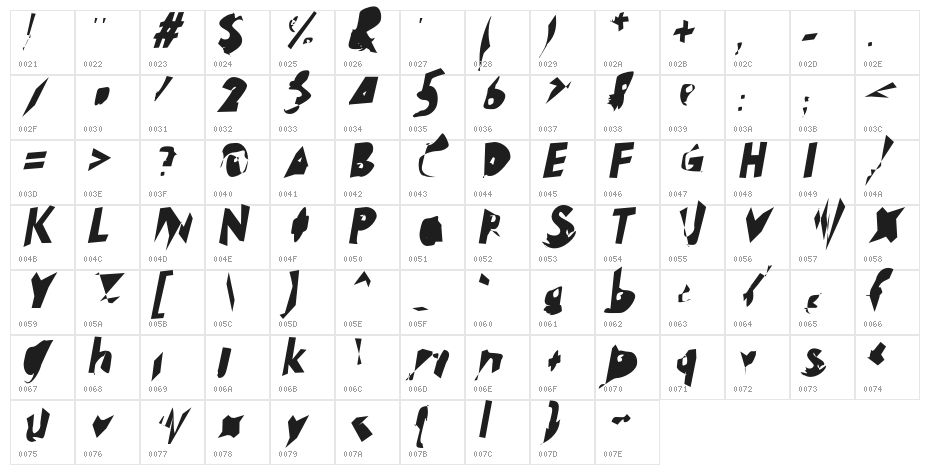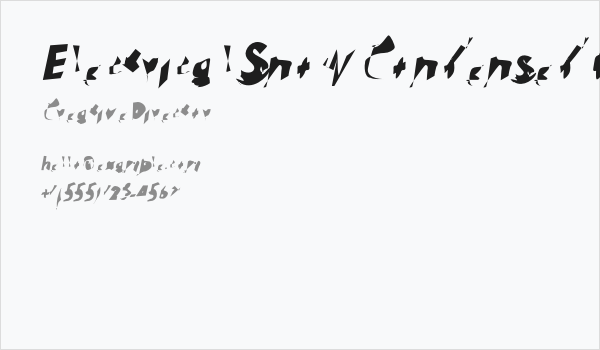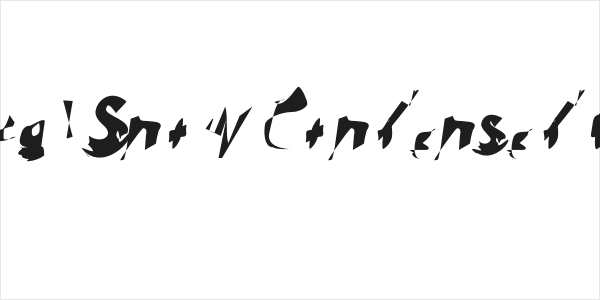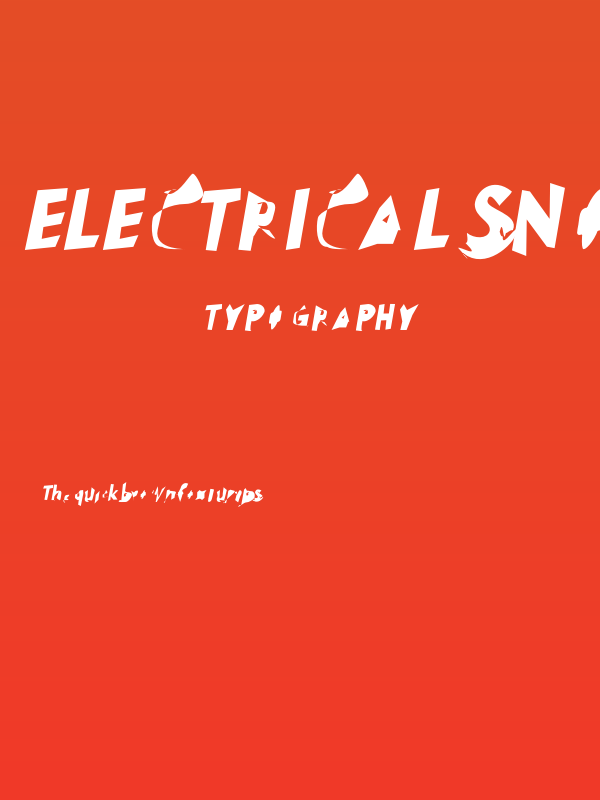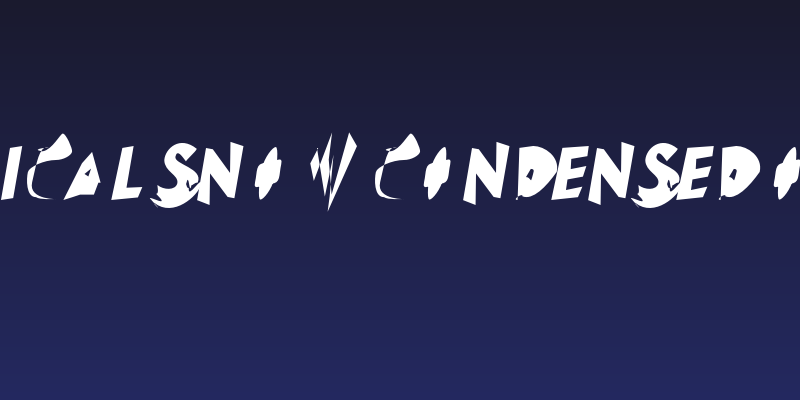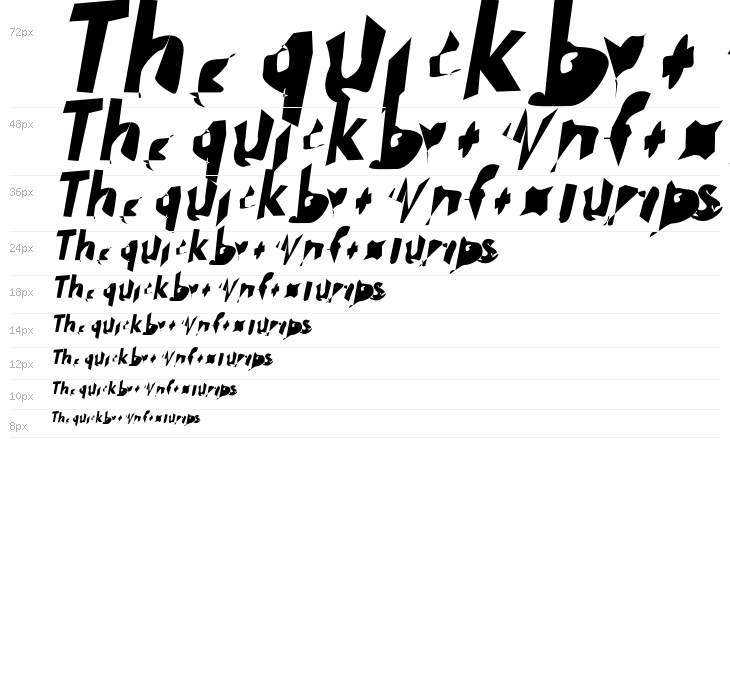
Electrical Snow Condensed Oblique Font
Electrical Snow Condensed Oblique Description
This font features a highly stylized and abstract design, reminiscent of jagged, icy formations or electrical discharges. The characters are bold and condensed, with sharp angles and irregular shapes that create a sense of movement and energy. The oblique orientation adds to the dynamic feel, making it stand out as a unique and eye-catching typeface. The uppercase and lowercase letters maintain a consistent style, while the numbers and special characters follow the same jagged aesthetic, ensuring uniformity across all elements.
Overall StyleModern, Energetic
Proposed ProjectsIdeal for edgy branding, music album covers, event posters, or any project requiring a striking and unconventional typeface.